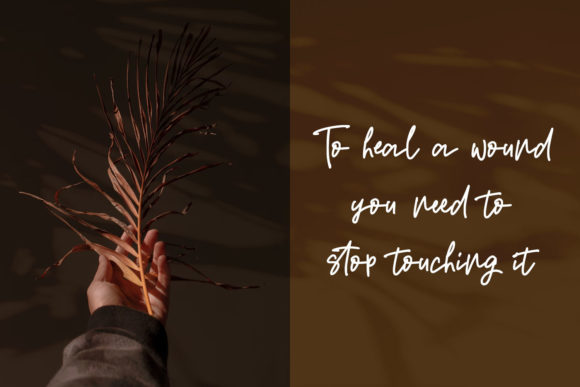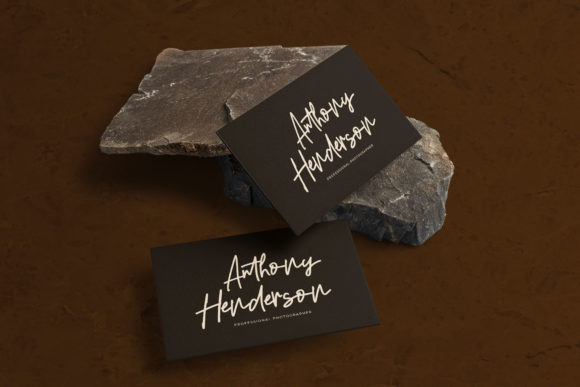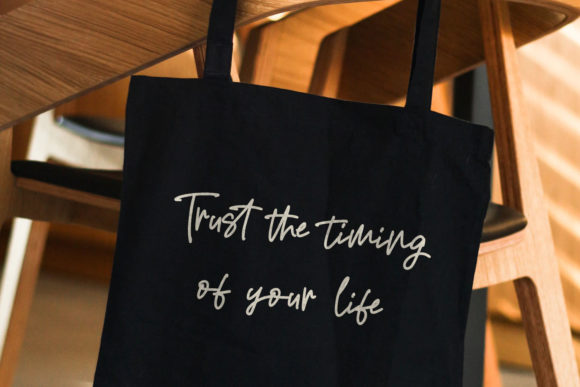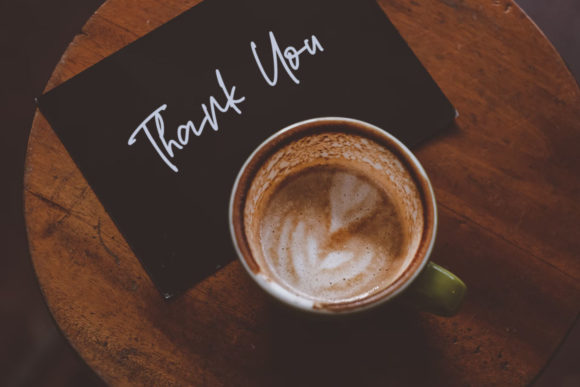
The Joy of Handwritten Touch
Have you ever been stuck on a design project, searching for that perfect font to give it a personal touch? I know I have. There’s something special about handwritten fonts that can make any design feel more approachable and human.
That’s why I’m excited to share with you the Bagellish Signature Font, a modern and quirky handwriting font that’s perfect for adding a relaxed style to your projects. Whether you’re creating cards, stationary art, social media posts, or anything in between, this font is sure to bring a smile to your face and make your designs stand out. With its PUA encoding, you’ll have access to all the glyphs and swashes you need to create unique and eye-catching designs.
Bagellish Signature Font Key Features
- Font Family: Bagellish Signature Font, a unique and elegant script font designed for personal and professional use.
- Unique Characteristics: Features a flowing, handwritten style with subtle flair and texture, perfect for creating eye-catching signatures, logos, and titles.
Bagellish Signature Font Review
I recently had the chance to try out the Bagellish Signature Font, and I must say it’s an interesting addition to any design project. ✨ The font is quite versatile, with a mix of modern and vintage elements that can add a touch of sophistication to any text.
The font comes in a range of weights, from light to bold, making it easy to adjust to different design needs. ✨ The ligatures and swashes add a personal touch, making it perfect for branding and signature work.
However, there are a few limitations to consider: ⚠️ The font may not be the best choice for large blocks of text, as the swashes can become overwhelming. Additionally, the font may not be compatible with all operating systems, which could cause display issues.
- Wide range of weights (6-20)
- Ligatures and swashes for a personal touch
Overall, I think the Bagellish Signature Font is a great addition to any designer’s toolkit. While it may have some limitations, it’s a unique and stylish choice that can add a touch of personality to any design project.
The Bagellish Signature Font is ideal for creating professional-looking logos, titles, and headings. It’s also great for adding a touch of elegance to presentations, documents, and designs.